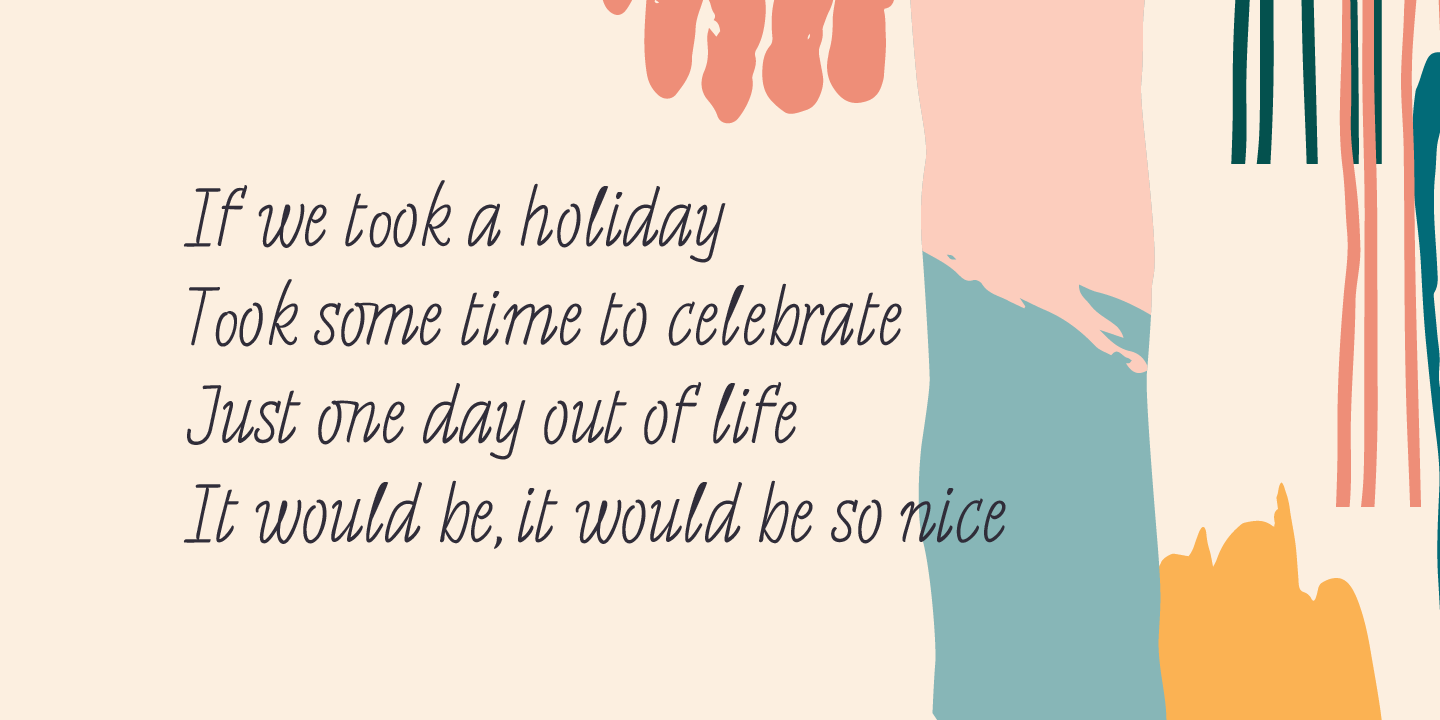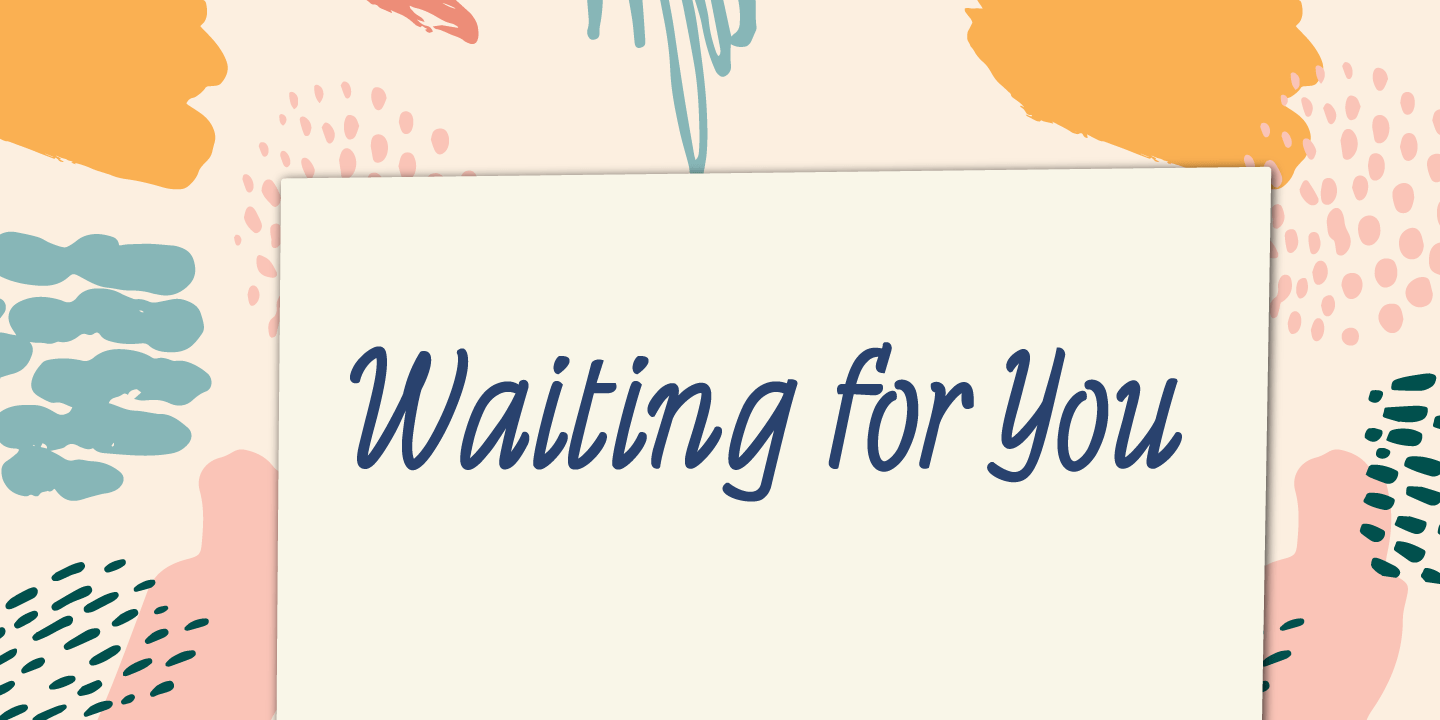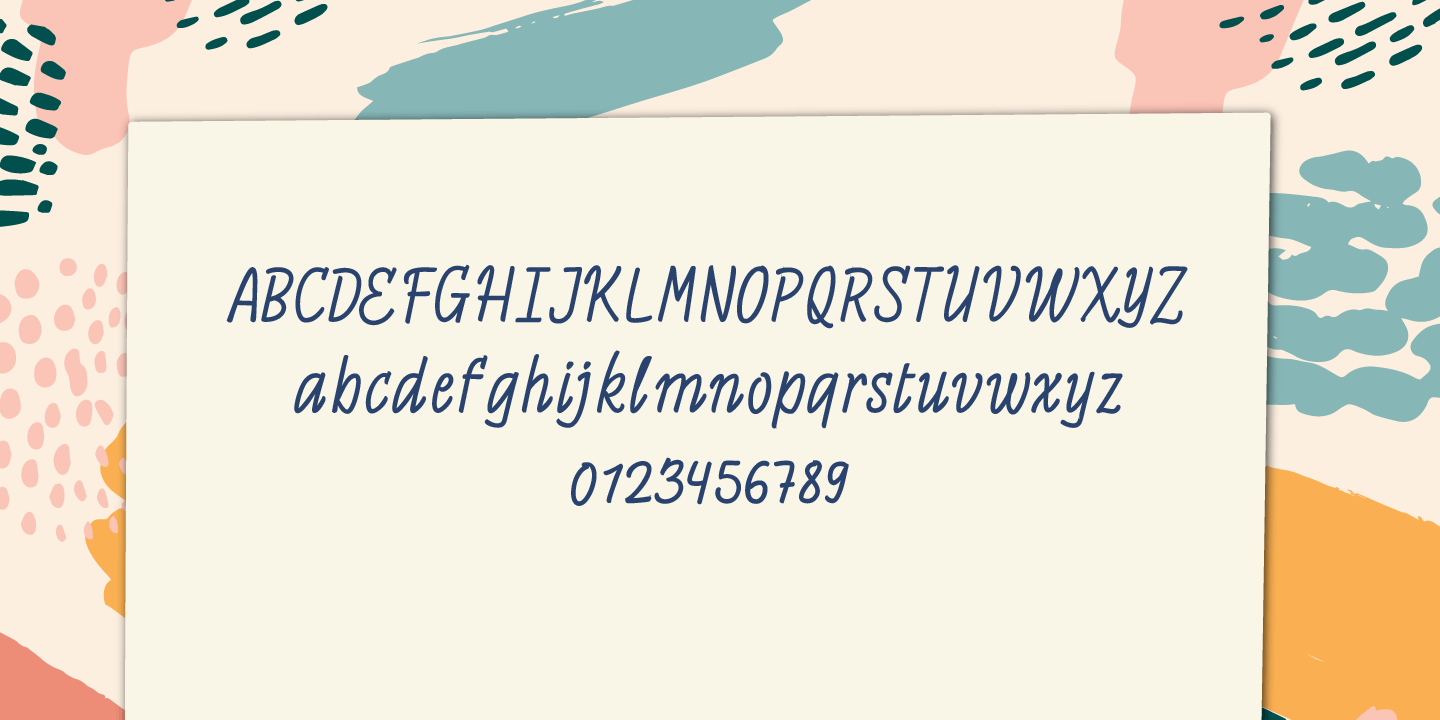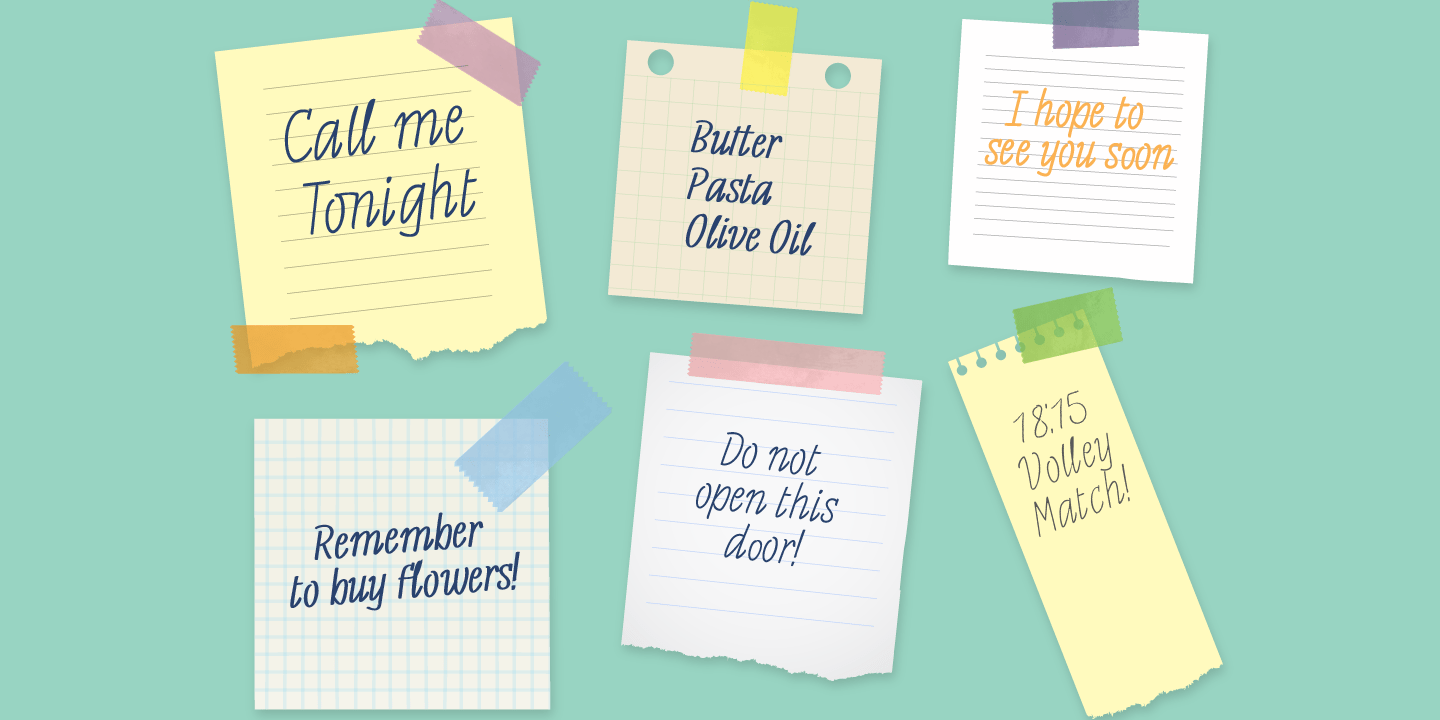
Notes Is a handwritten-Italic font style, casual and fresh. Our recipe for this project is a perfect blend of typography and handwriting. Works well in small sizes and has several ligatures. Notes Family has many cuts, Pen, Pencil, Marker and Felt Tip.…